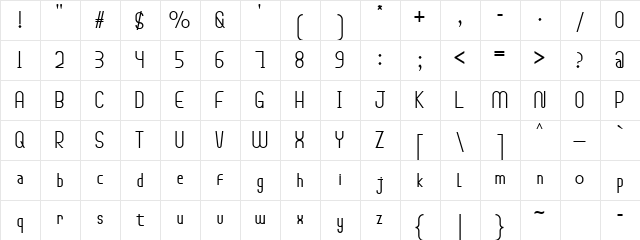
Moorley Hoosten Regular
| Designer | Afif Hidayat Alhabsi |
Design Context for Moorley Hoosten Typeface
Moorley Hoosten is a composed and adaptable typeface that performs quietly and consistently across a wide range of design contexts.